- Lime Lines Font has been released for those of you who are looking for a Script Cartoon Font. A Retro/Playful Script Font that combines the handrawn Script rounded typeface. This font is inspired by the ’60s, ’70s, and ’80s Retro Cartoon Comic, a Script font with several combinations to combine Pop and Playful styles like a Retro Cartoon Comis. With easy-to-read character font for your Retro Cartoon vibes, you can also easily create beautiful and stand-out typography and retro. Unleash your creativity with Lime Lines Font and let your retro cartoon comic projects!
- Lime Lines is perfect for logotypes, Book Covers, Gift Cards, Greeting Cards, Posters, Merchandise, Packaging Labels, and more.
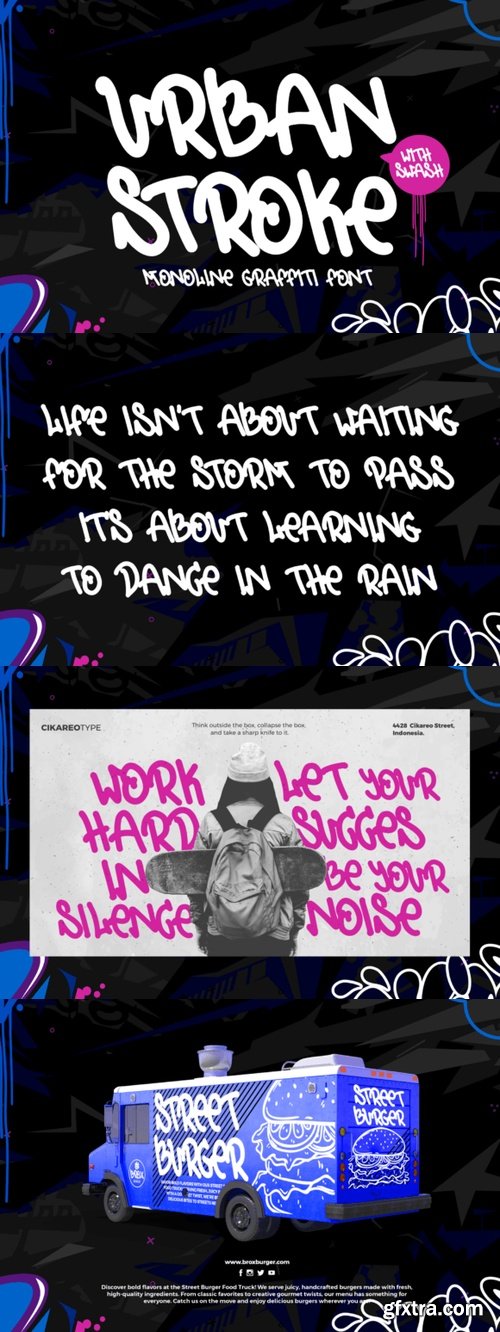
- Infuse a bit of city grit and spirited dynamism into your designs with Urban Stroke — a rousing monoline graffiti font featuring audacious swashes. This typeface flawlessly marries the urban heart of graffiti art with the streamlined elegance of monoline calligraphy, evoking the artistry of urban settings while keeping a refined nuance. Incorporated swashes inject a lively touch, infusing every character with an unmatched zest.
- Whether your project calls for street-seen fashion branding, vibrant logo design, city-inspired corporate identity, or captivating headers, Urban Stroke stands out with its distinct fusion of raw elegance and city-inspired cool. The typeface’s clean but animated strokes make it the go-to choice for a wide array of creative endeavors, from eye-catching posters and digital masterpieces to social media visuals and custom merchandising.
- Urban Stroke breathes life into your design work with its contemporary, graffiti-referencing style and stark aesthetic presence. If you’re looking to make an impact while retaining a touch of trendiness, this font delivers just the right amount of edge and sophistication for any bold visionary. Experience the city’s pulse flowing through every curve and stroke of this unique typeface.
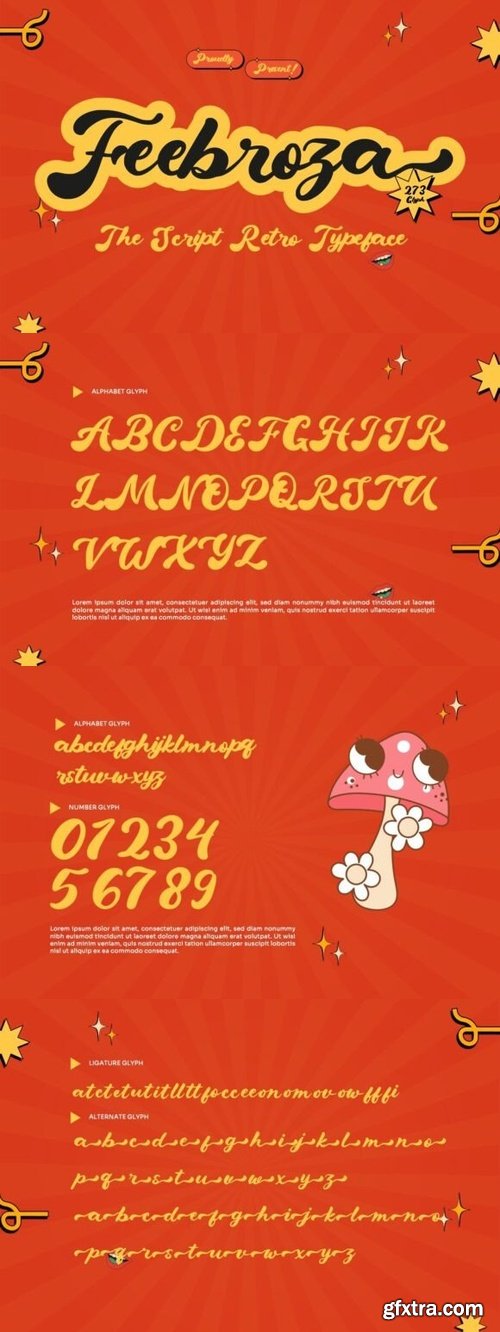
- Feebroza is a stunning retro script font with an elegant and dynamic flow. Its smooth, handwritten curves capture the essence of vintage advertising and poster designs, making it a versatile choice for branding, logos, invitations, and more. Feebroza combines retro charm with contemporary functionality.
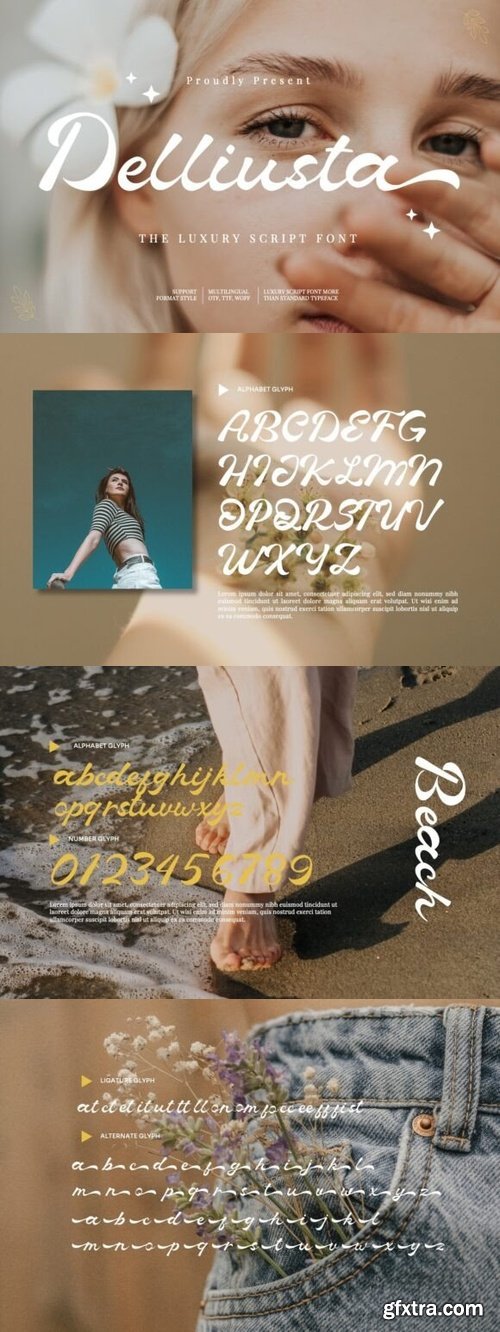
- Delliusta – Luxury Script is an elegant and stylish font with a handwritten feel. Its smooth, flowing letters give it a luxurious and sophisticated look, perfect for upscale designs, invitations, and logos.
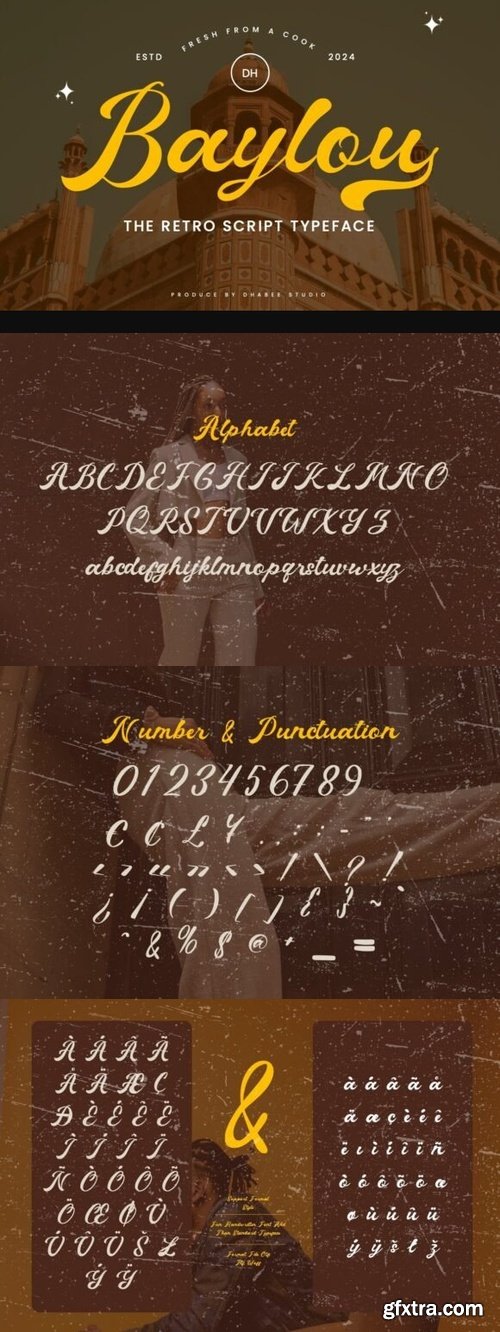
- Baylou – Retro Script is a playful and stylish font that has a vintage, handwritten look. It combines smooth curves with bold letters, giving it a fun and classic feel, perfect for creative designs that need a touch of retro charm.
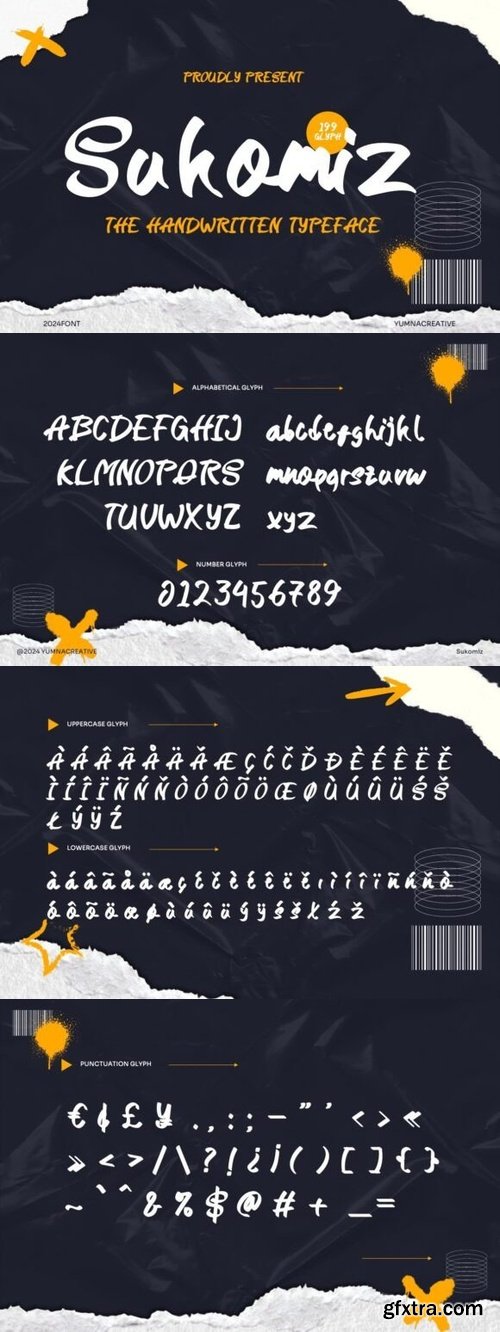
- Sukomiz – Handwritten is a unique font that looks like natural handwriting. It has a friendly, casual style with smooth curves and a personal touch, making it perfect for projects that need a warm, authentic feel.
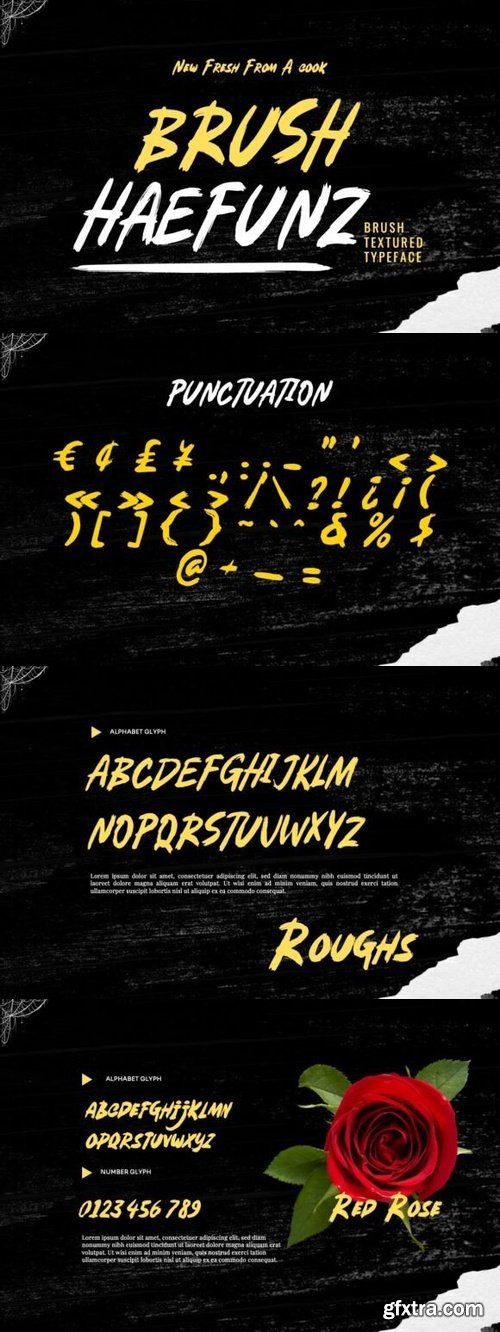
- Brush Haefunz is an edgy, textured brush typeface bursting with energy. Its rough, hand-drawn strokes create a bold and impactful look, perfect for sports posters, urban branding, graffiti-inspired designs, and promotional materials. Make a statement with Brush Haefunz.
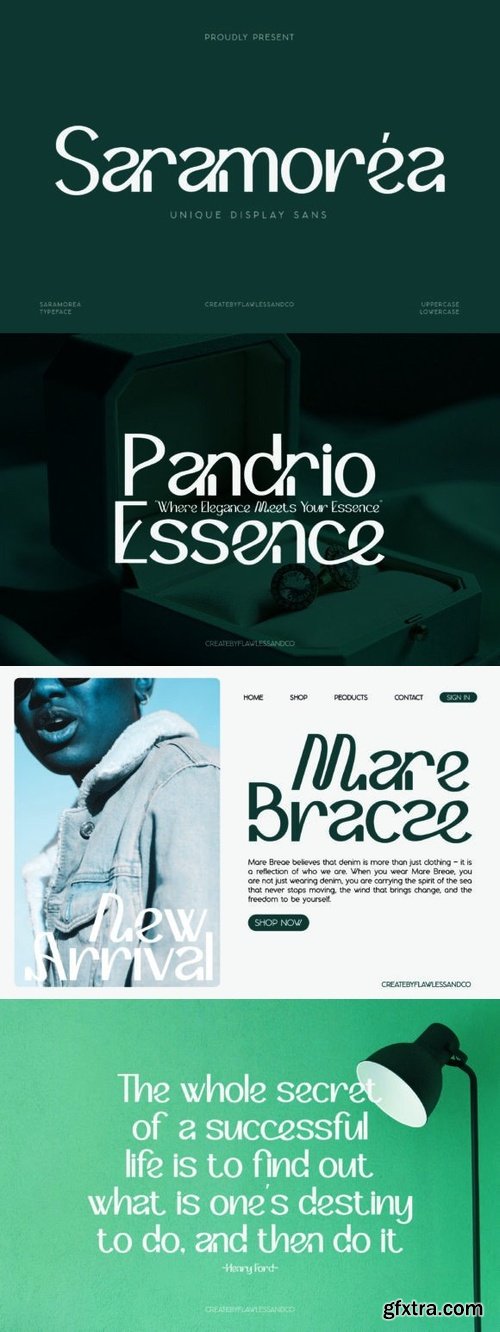
- Saramorea is a bold sans serif typeface that blends expressive style with artistic elegance. Featuring high-contrast strokes, wide letterforms, and stylish curves, it’s perfect for luxury branding, fashion editorials, social media, and statement-making designs. Equipped with alternates, ligatures, and multilingual support, Saramorea brings sophistication and dramatic flair to any layout. Ideal for designers and brand creators who value premium aesthetics, Saramorea helps your visuals stand out with confidence and creativity.
- Wagzero is a bold stencil serif font that combines modern with a touch of luxurious elegance. Its unique cut-through elements and thick strokes create a powerful contrast, Perfect for logos, fashion branding, editorial layouts, packaging, posters, magazines, headlines, weddings, high-end product design, and everything that calls for a touch of bold elegance and class. Comes with a complete set of uppercase and lowercase letters, numerals, punctuation, ligatures, stylistic alternates, and multilingual support. Created with professional designers in mind, Wagzero is a go-to typeface for luxury branding, modern editorial design, and standout visual communication. Its timeless appeal and bold aesthetic make it an essential asset in any premium design toolkit.
- Vanmory is a futuristic sans-serif display font with a bold, geometric, and high-tech aesthetic. Its sharp angles and unique letter cuts, like the “A” without a crossbar, give it a cyberpunk and sci-fi feel. Ideal for game titles, tech branding, and futuristic designs, it exudes strength, modernity, and a digital edge.
- Cowboy Wanted is a striking Western-style decorative font that brings the rugged charm of the wild west to your designs. With its vintage flair and ornate details, it’s a perfect match for retro branding, saloon posters, and Americana-style graphics.
Introducing Rukest Blackletter Display Font.
Rukest Blackletter Display Font is a handmade Modern Victorian hand-lettering that combines modern and classic typography with some awesome alternates. Yes, we’re back in the early 1800s, bringing a classic touch to this decade.